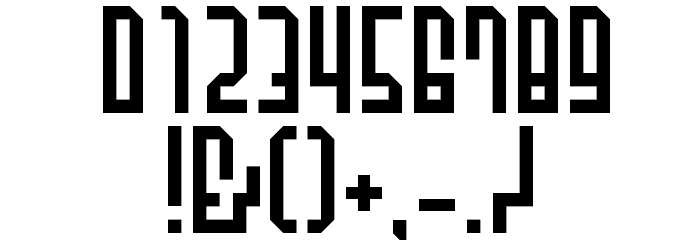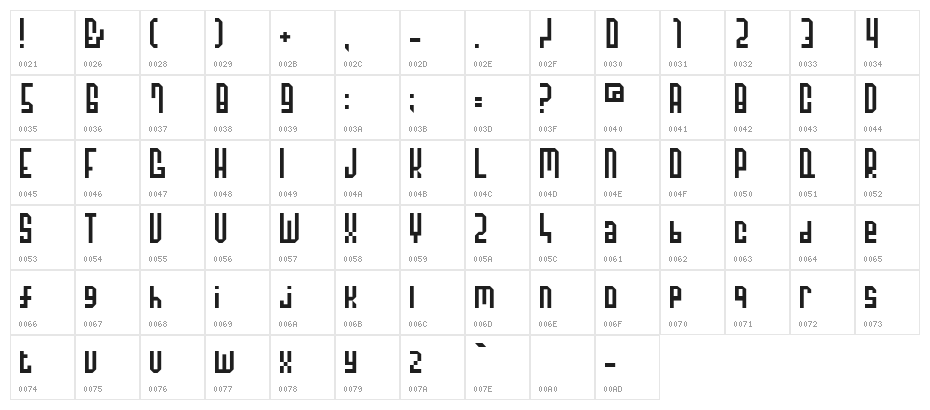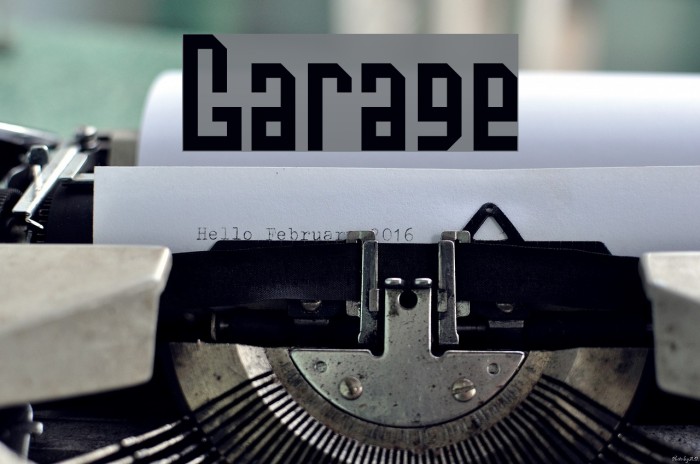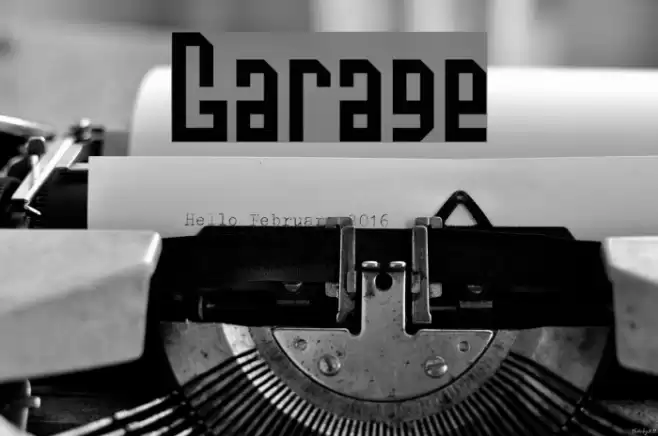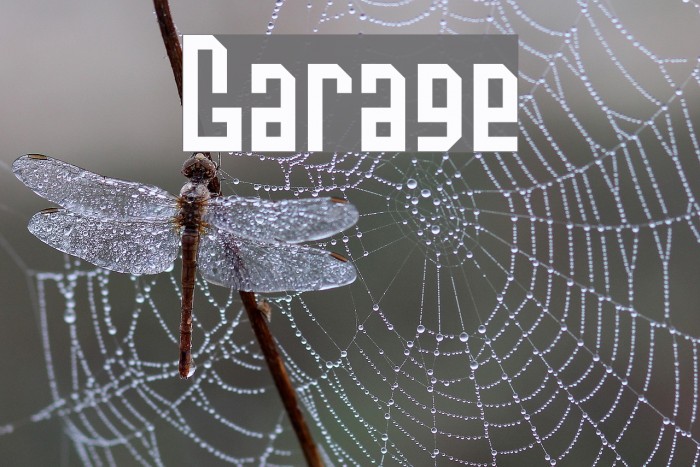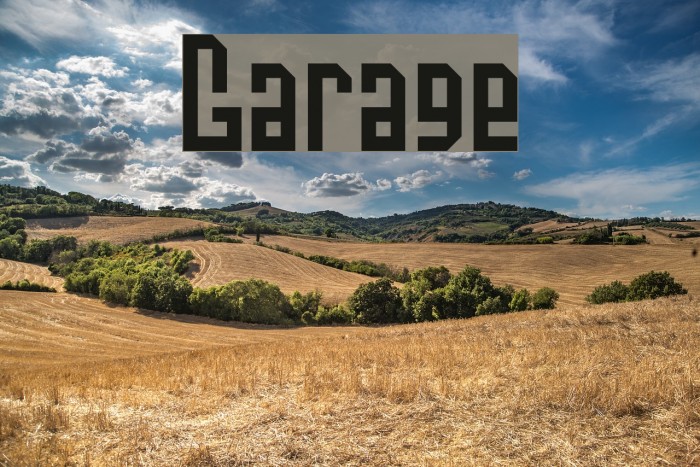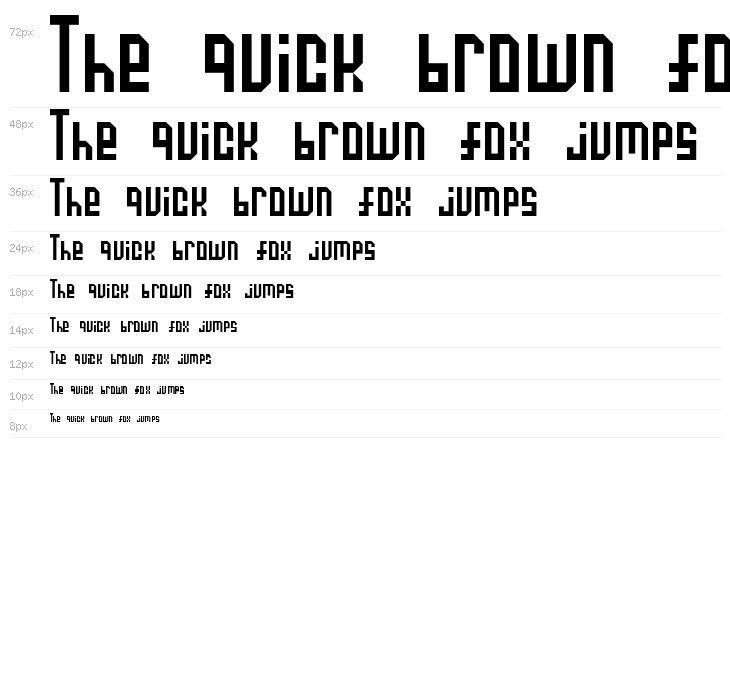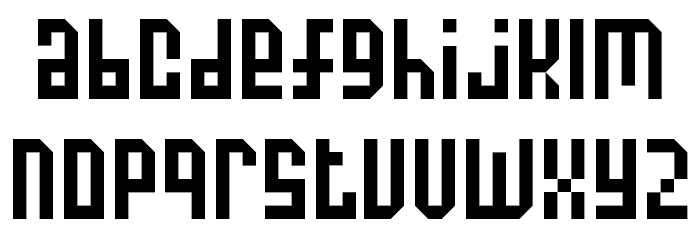
Garage Font
Garage Description
This font features a bold, geometric design with a distinctly modern and industrial feel. Each character is constructed with straight lines and sharp angles, giving it a mechanical and futuristic appearance. The uppercase and lowercase letters maintain a consistent height, contributing to a uniform look across the text. The numbers and special characters follow the same design principles, ensuring cohesion throughout. The font's blocky style makes it highly legible and impactful, ideal for grabbing attention. Its unique structure is reminiscent of digital or retro gaming aesthetics, making it suitable for projects that require a strong, tech-inspired visual identity.
| Proposed Projects | Ideal for tech branding, video game titles, posters, and futuristic designs. |